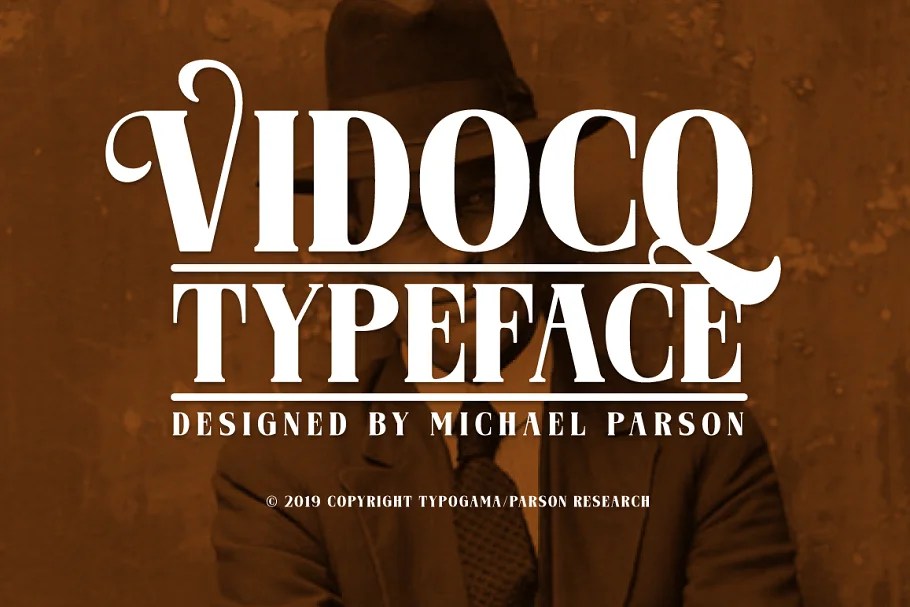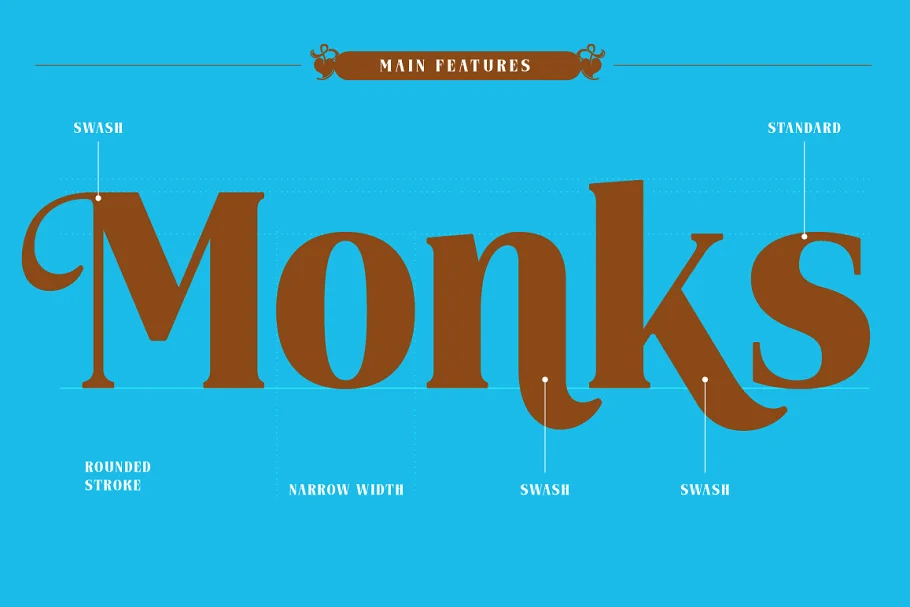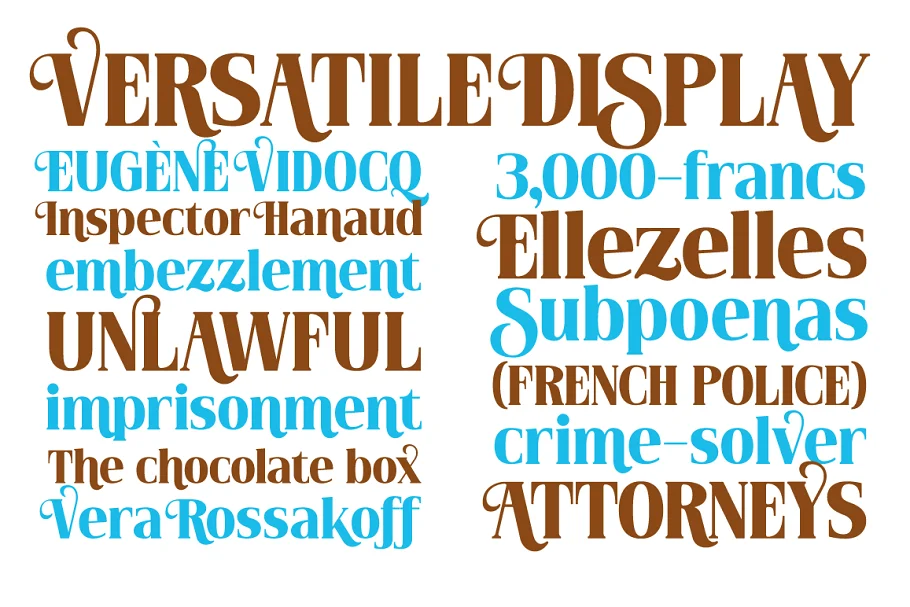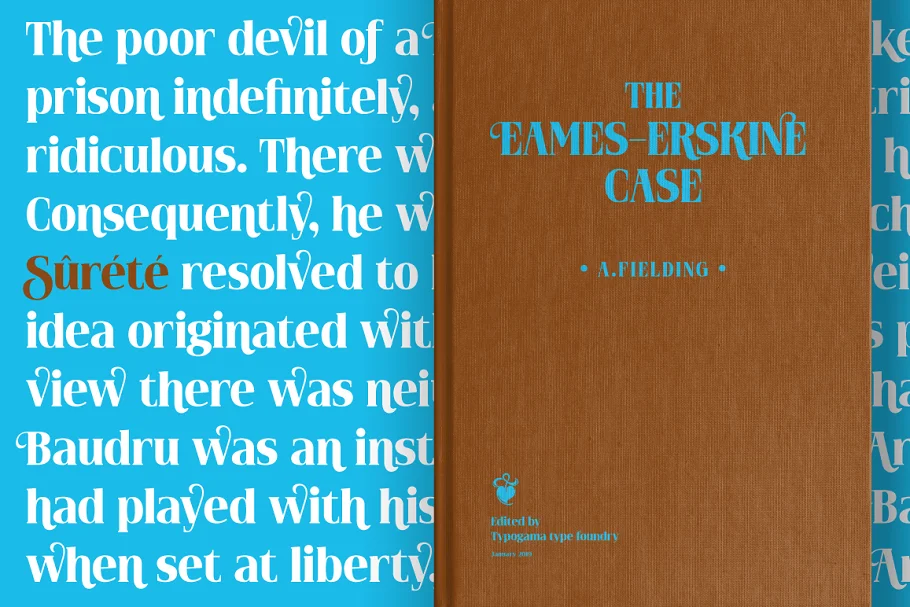
About the Vidocq Font
Vidocq is a single-weight typeface designed for use in headlines and titles, inspired by the woodcut styles of the 19th century.
Its rounded forms and dark stroke translate into a bold yet friendly appearance coupled with a narrow proportion that lets it set well in condensed settings.
Thanks to an extended character set and a wide range of Opentype features that include arrows and fleurons, Vidocq was created to allow designers to play with various styles while composing layouts.
Opentype features: Ligatures, Discretionary Ligatures, Swash, Alternate, Hanging numerals, Scientific numerals, Fractions,